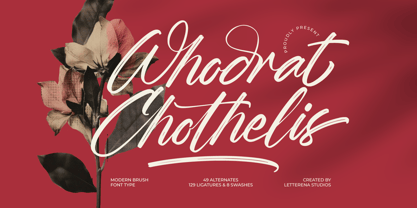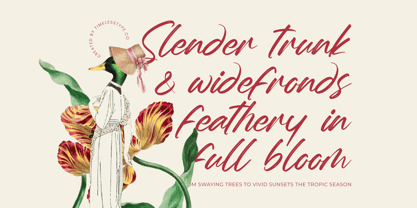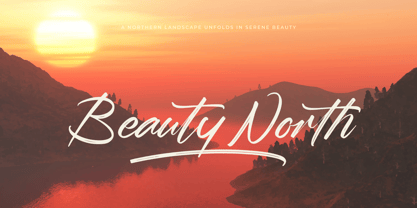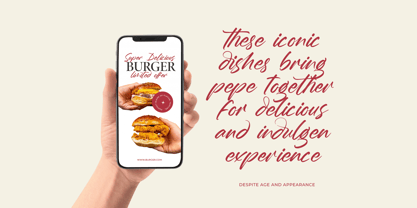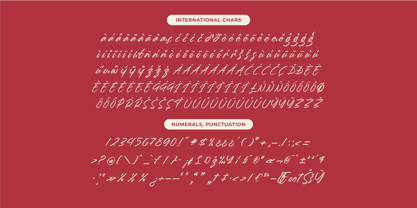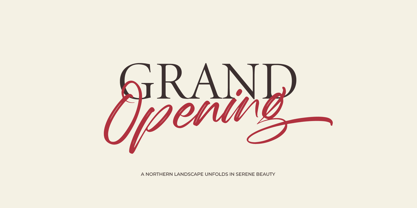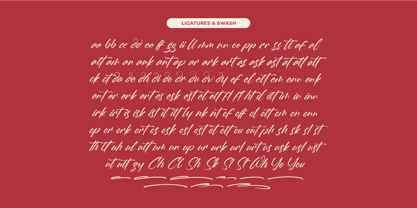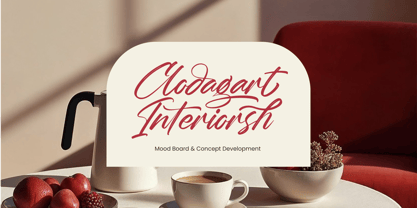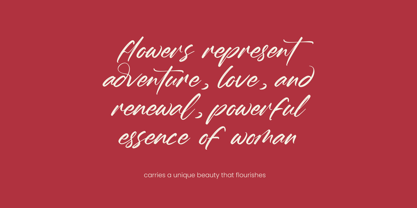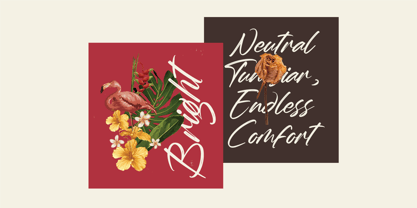
Whadrat Chothelis
The Whadrat Chothelis Font Family was designed by Heru Utama Putra and published by Letterena Studios. Whadrat Chothelis contains 2 styles and family package options.
Whadrat Chothelis - Modern Brush Font Type, from Letterena, is a Luxury Script font, suitable for any projects such as: logos, branding projects, homeware designs, product packaging, mugs, quotes, posters, shopping bags, t-shirts, book covers, name card, invitation cards, greeting cards, label, photography, watermark, special events, and all your other luxury and beautiful projects that need a Luxury Script taste.